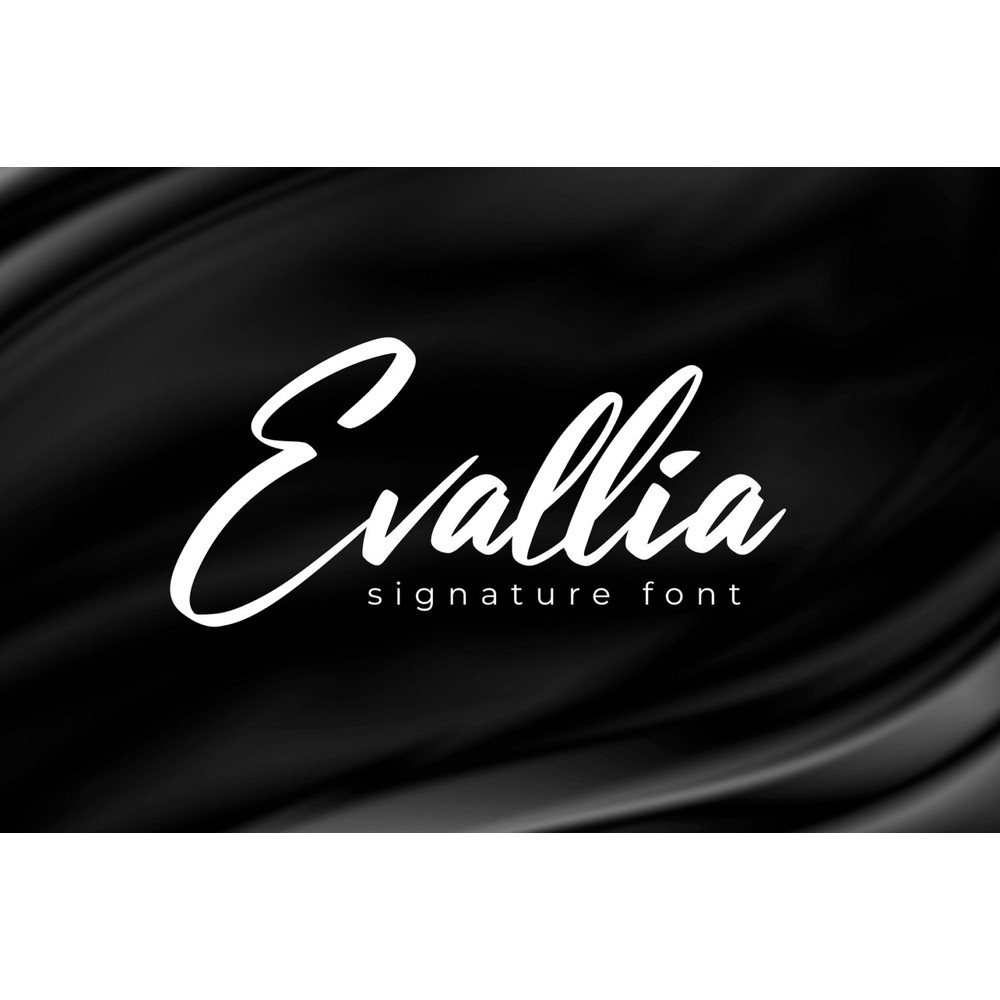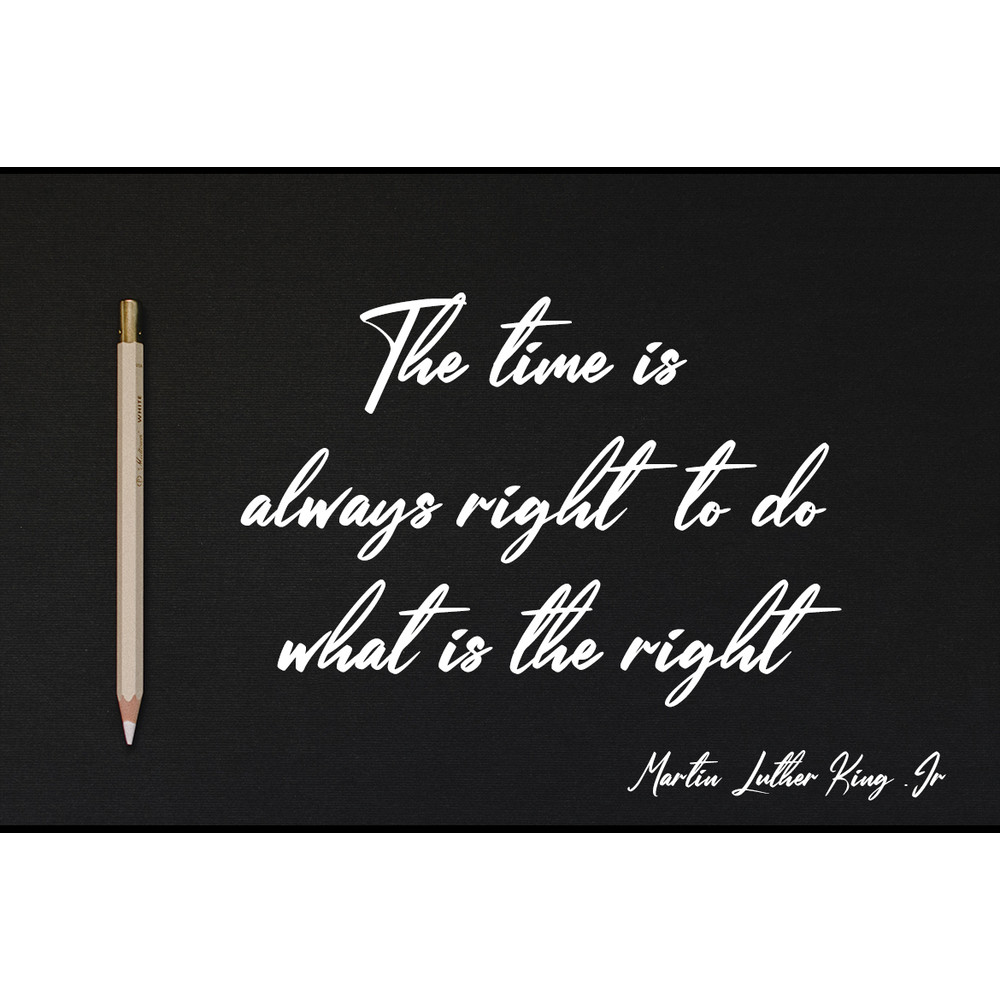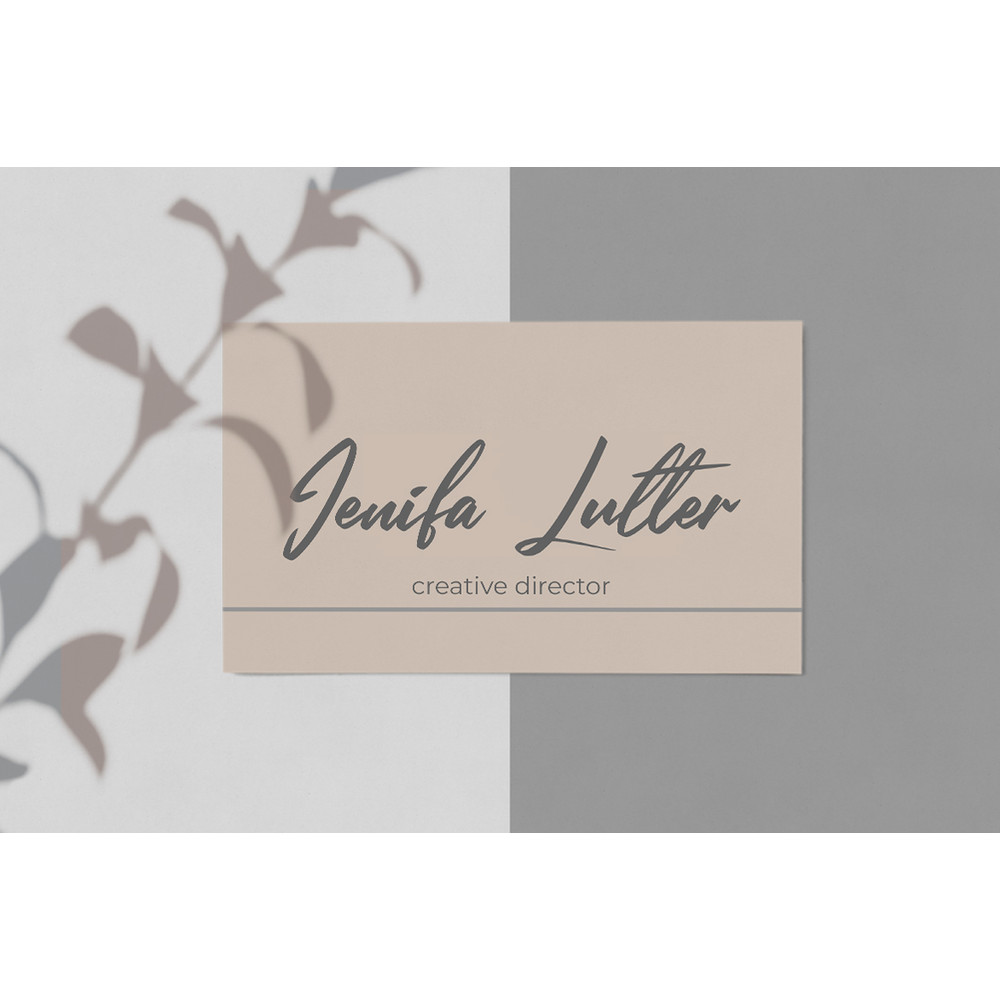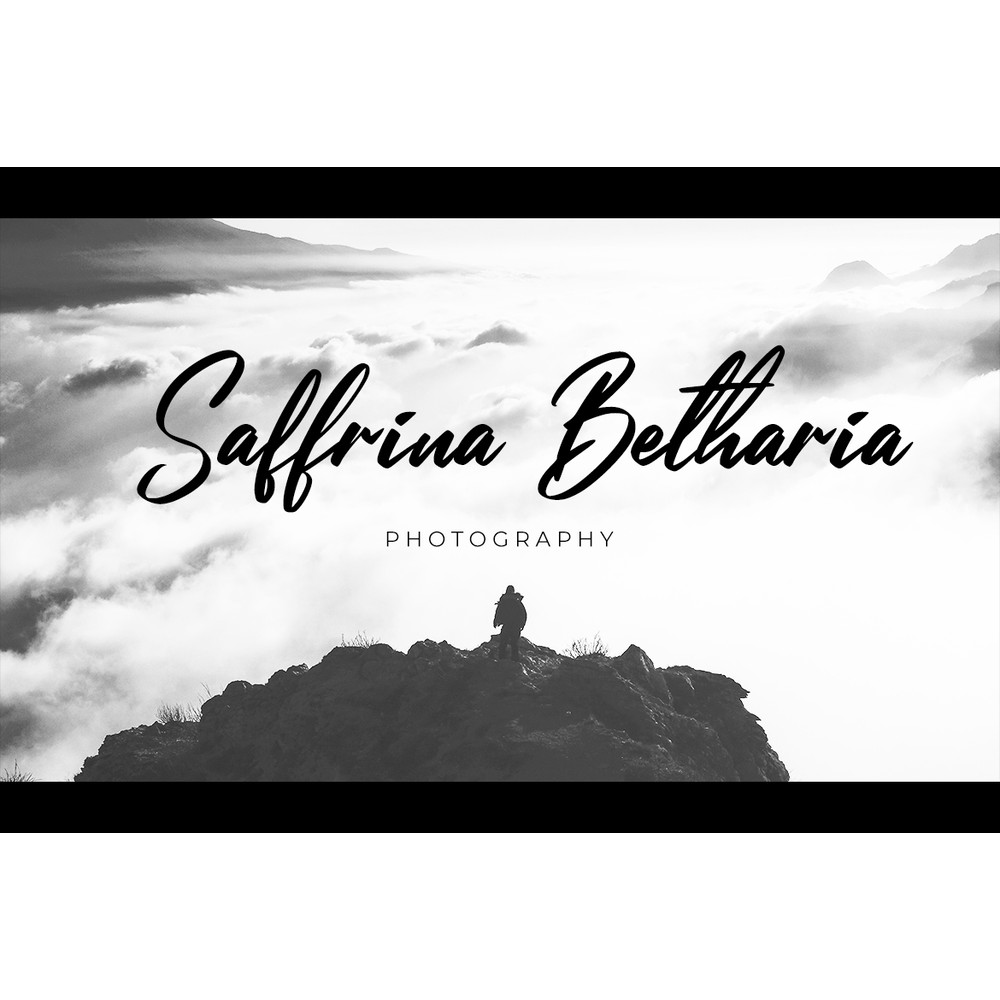
Evallia Script is a beautiful font that features a varying baseline, smooth line, modern, and with a depth love. For those of you who need a touch of love and modernity for your designs or branding, it can be used for various purposes such as headings, wedding, invitation, signature, logos, branding, t-shirt, letterhead, signage, labels, news, posters, badges, etc.
We design this font with OpenType features to give an artistic touch on it. This font is also applicable for numbers, punctuation, and other languages. It is also a multifunction font where you can use for a business logo, branding, wedding invitation, and anything you want.